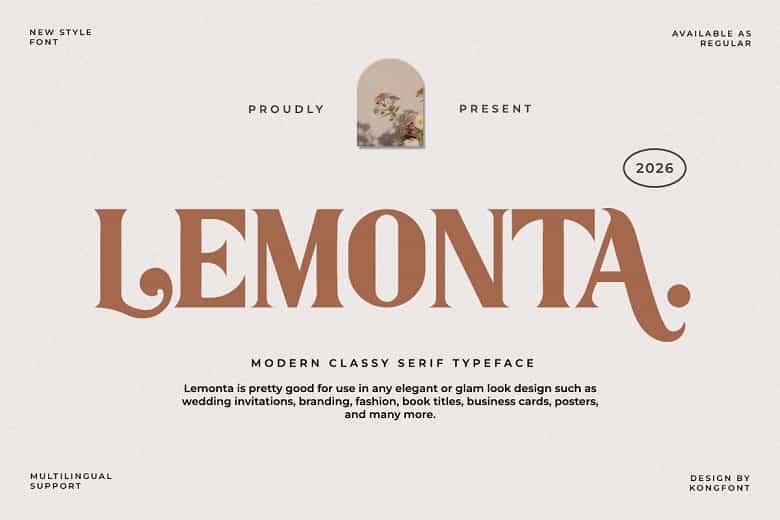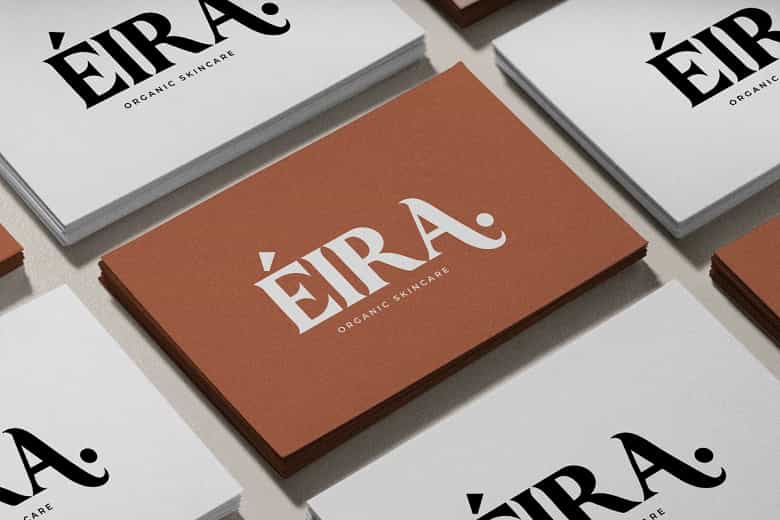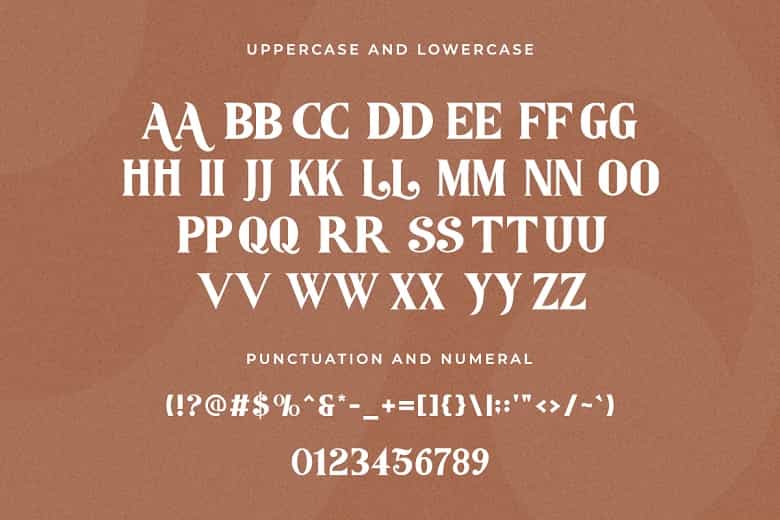
Lemonta Serif Font is designed to provide a neat and classy look to whoever we are in front of. This is in concurrence with the feature of the letters which are very neat and have no filler content in each of the letters. Lemonta Font has a good stature and gives a rather composed impression. Thus, those who will read different texts written in this font do not have to make an effort to be able to read and comprehend it, in other words, this is a clear font.